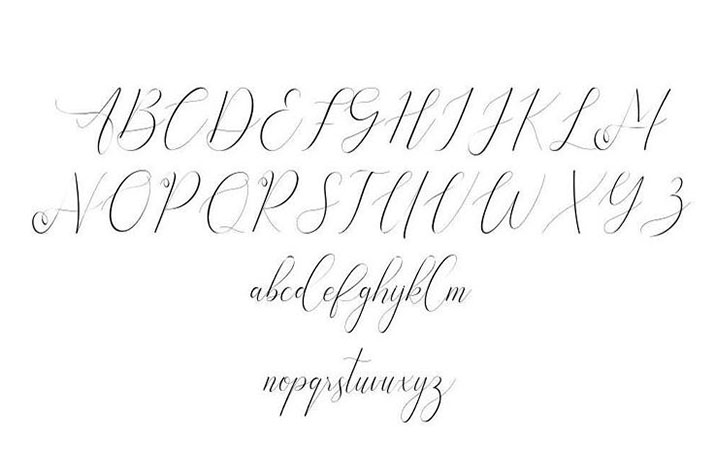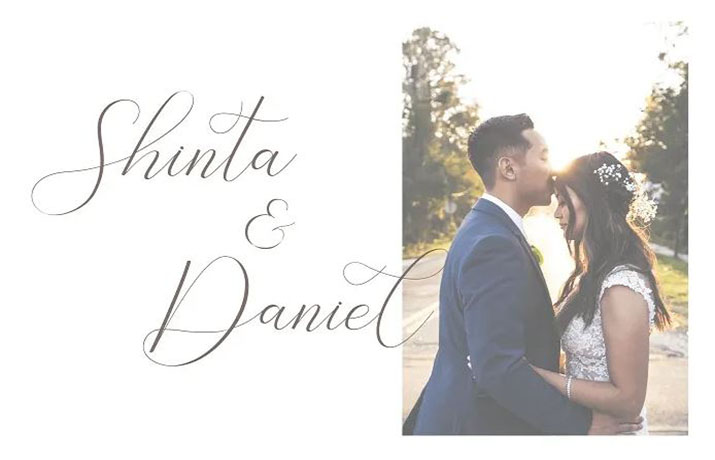
Bathey Font is a script calligraphy typeface that has classic and contemporary letterforms. Pen Culture took charge of designing and releasing it first.
You can use it to make a design for logo branding, poster headlines, magazines, business cards, beautiful fashion designs, product designs, wedding invitations, signatures, or handwritten quotes.
This font has a great personality in letters that have slightly bouncy letters and delicate swashes that dance across your eyes. So, we can say that it is a one-stop shop for all your creative lettering needs.
“Bathey typeface can be found in a single style along with True Type features. This single style contains 194 unique glyphs and 7 ligatures. Moreover, it also supports 62 multilingual languages”.
| Style: | Script, Calligraphy, Typeface |
- Owing to its most fashionable and hip appearance, it is undoubtedly capable of producing banners, t-shirt printing, signs, birthday cards, official cards, special quotes, titles, thumbnails, unique emblems, tattoos, stickers, social media posts, covers, posters, product design, product packaging, shopping bags, advertisements, and other materials.
This font supports 62 multilingual languages.